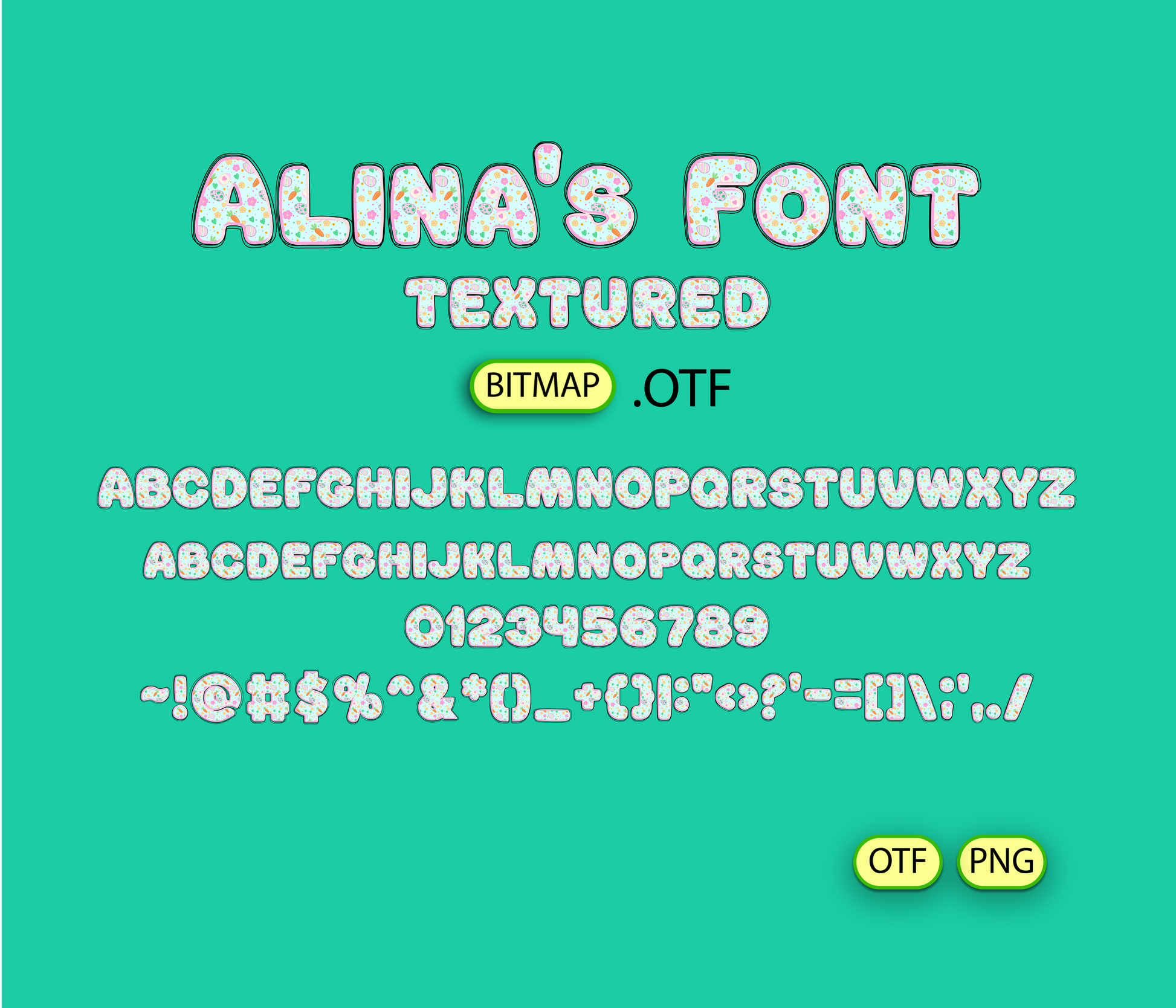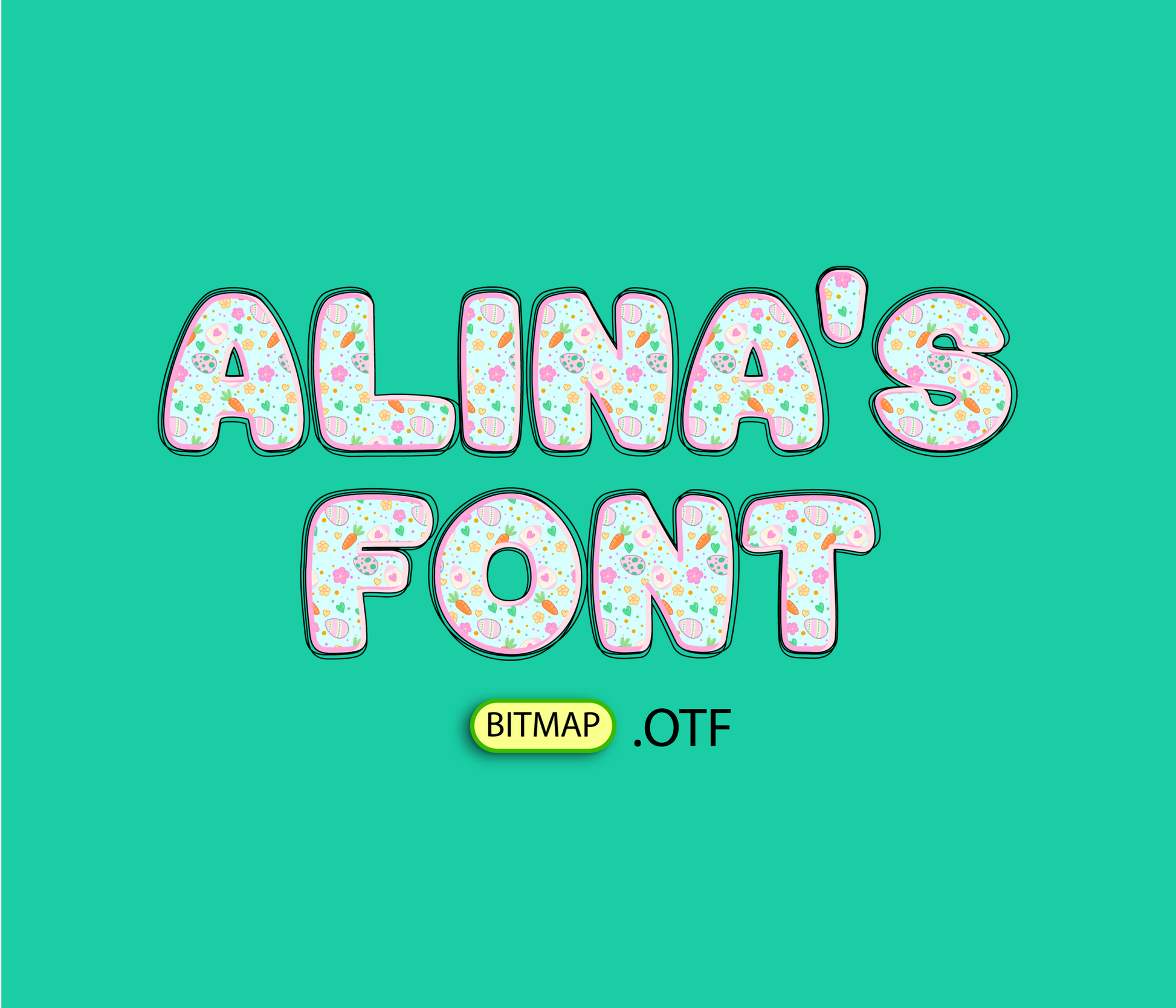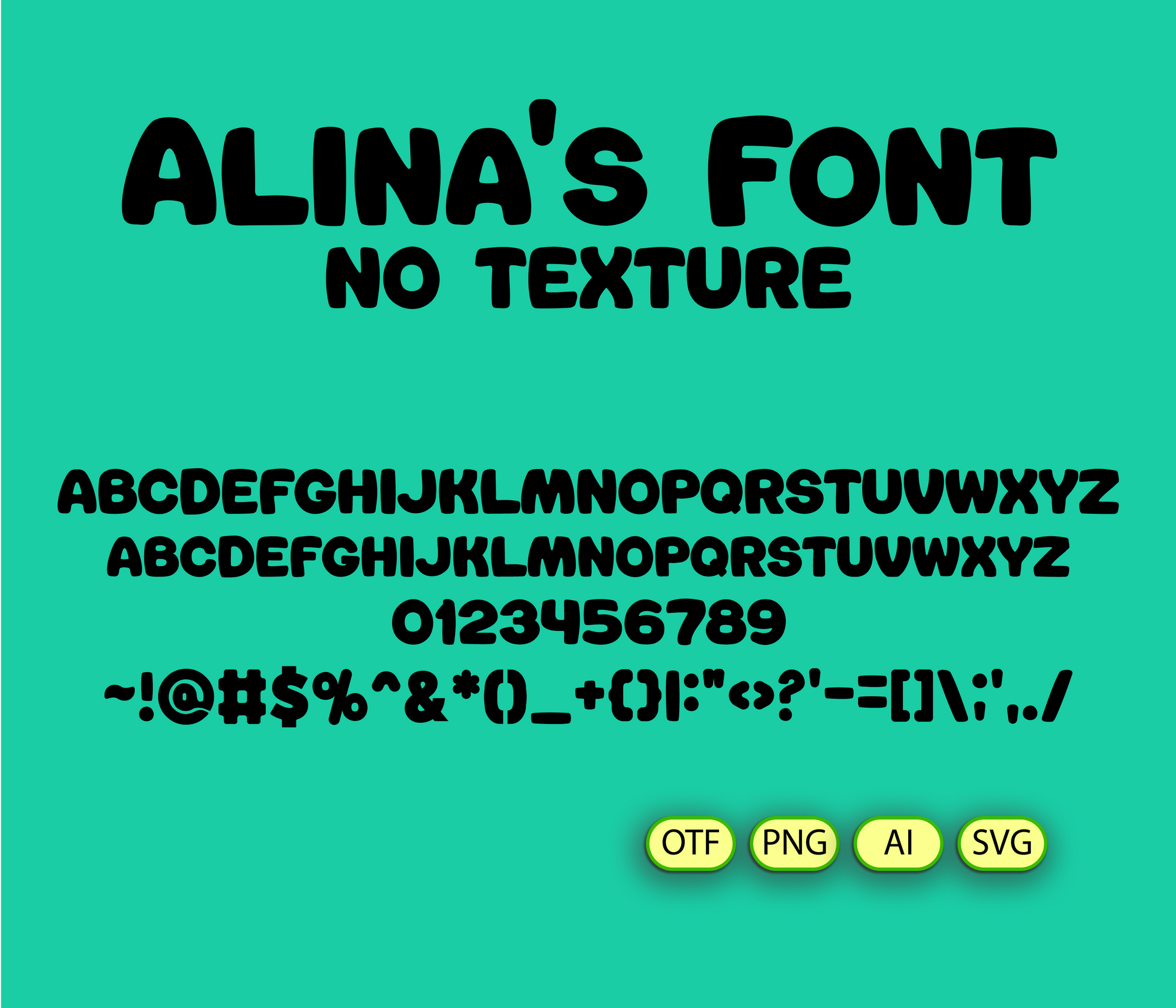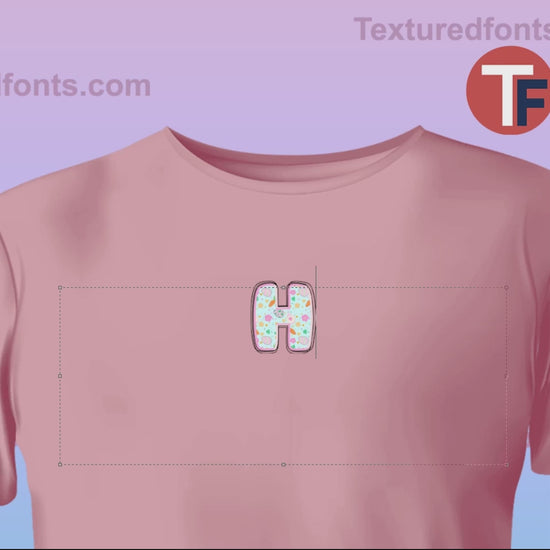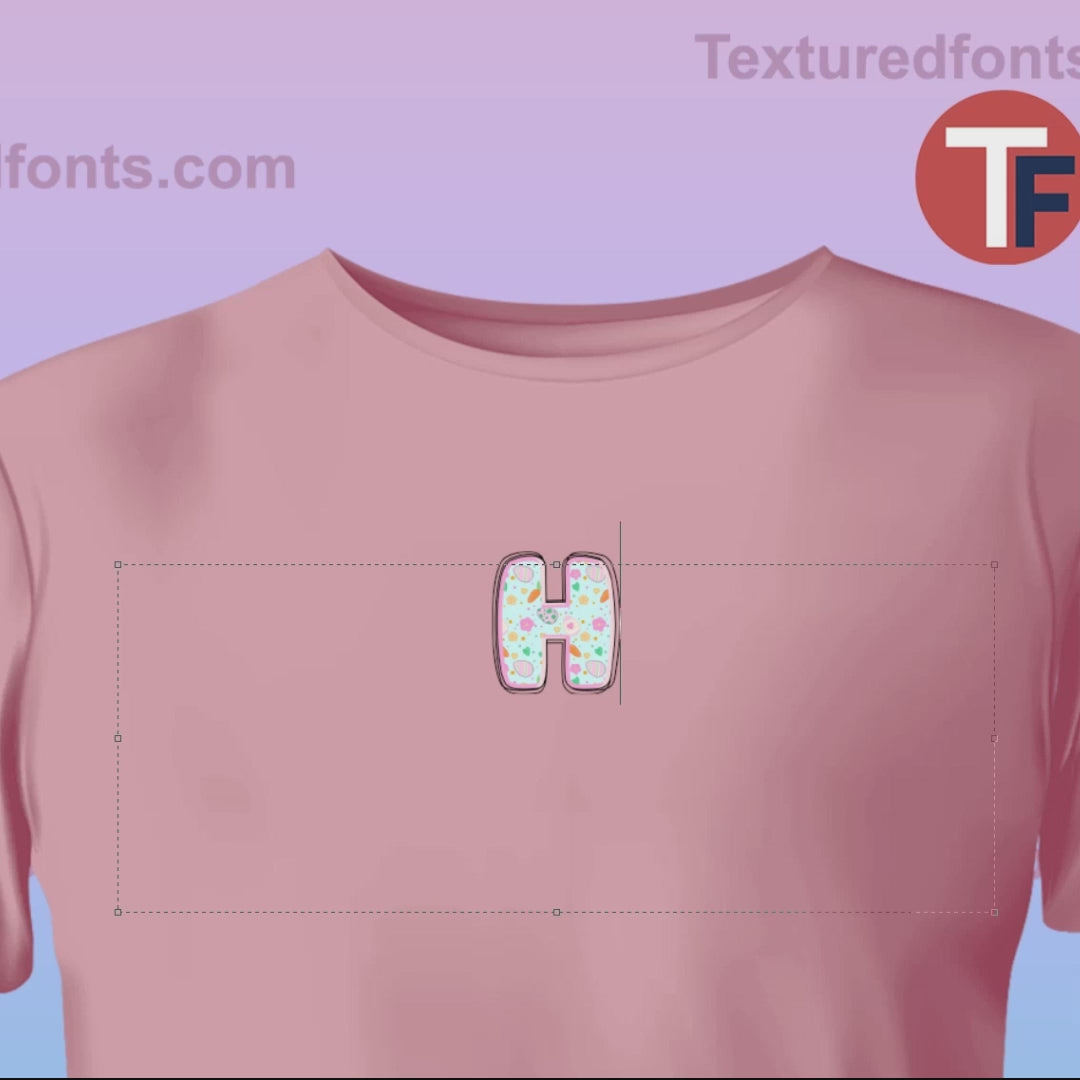
Springtime Easter Pattern Font
Springtime Texture Font Easter Pattern Design
Introducing the Easter font, a delightful and vibrant typeface crafted to capture the essence of the Easter season. This font embodies the joy, renewal, and warmth of Easter with its playful characters and spring-inspired design elements. Whether you're designing materials for an Easter egg hunt, creating festive greeting cards, or adding a touch of seasonal cheer to your social media posts, the Easter font is perfect for projects that aim to celebrate this cherished time of year.
Optimized for Canva, the Easter font allows users of all design backgrounds to seamlessly incorporate the spirit of Easter into their digital designs. This accessibility ensures that anyone can create beautiful, Easter-themed projects with ease, whether for personal use, community events, or marketing campaigns. The font's design is versatile enough to complement a wide range of Easter-related content, from invitations and flyers to digital banners and educational materials.
Understanding the diverse needs of our users, we've included a no-texture version of the Easter font, ensuring it's compatible across all software and making it a flexible choice for both digital and print mediums. This version is ideal for projects that require a cleaner, more subdued appearance, while still benefiting from the festive charm of the Easter font.
Featuring a comprehensive character set and a user-friendly design, the Easter font is accessible to everyone, inviting users to infuse their projects with the essence of Easter. Whether you're planning an Easter celebration, promoting seasonal products, or simply wishing to spread the joy of the season, our Easter font, complete with its no-texture variant, enriches your creations with its playful elegance and seasonal appeal.